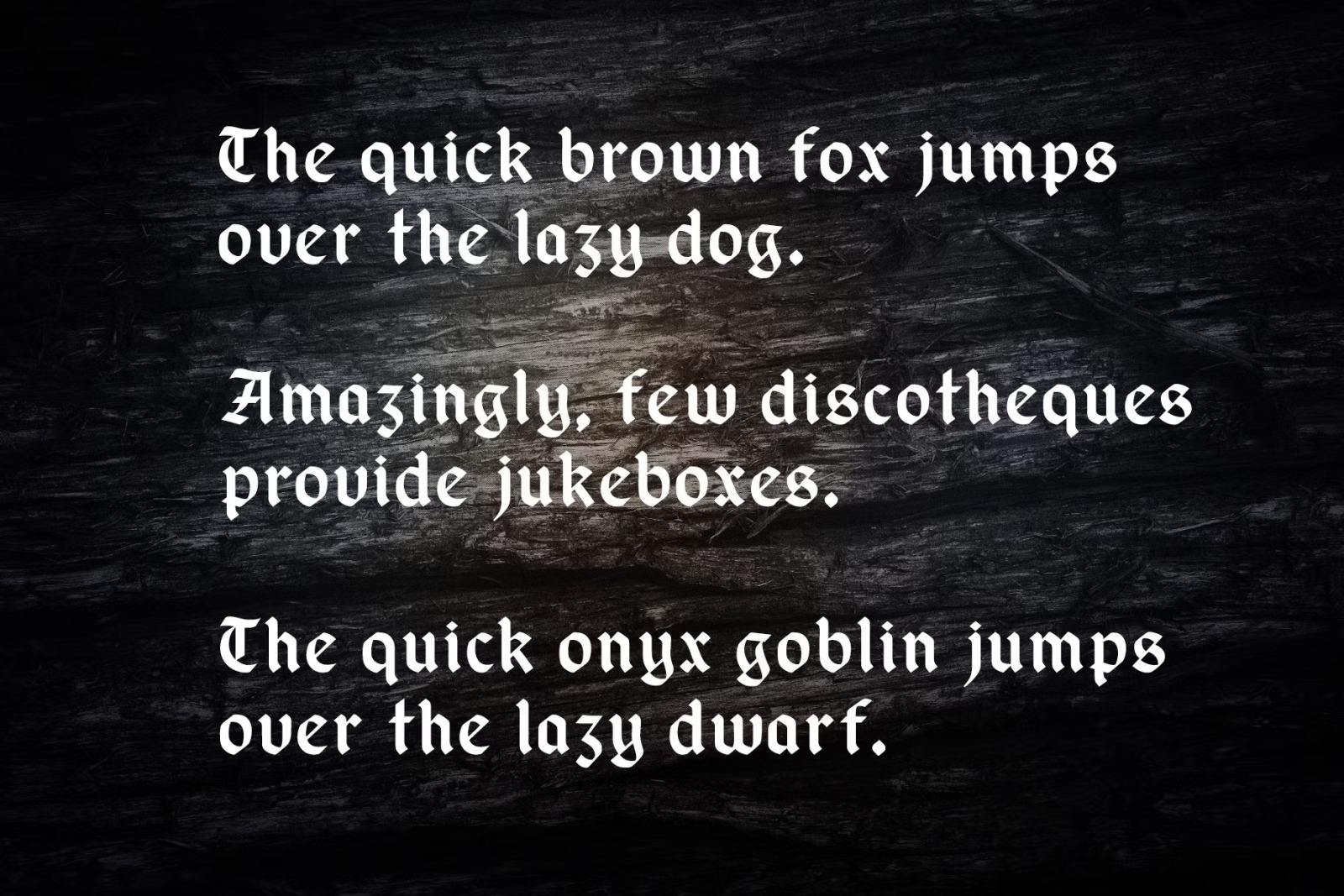
Red Baron Font
Red Baron is a more script inspired blackletter typeface that features a more humanist look and feel than a classic Blackletter/Old English font. A distinctly Germanic look that maintains a unique stylized and solid legibility. Perfect for any classic or fantasy logos, lettering, clothing, and stylized product.